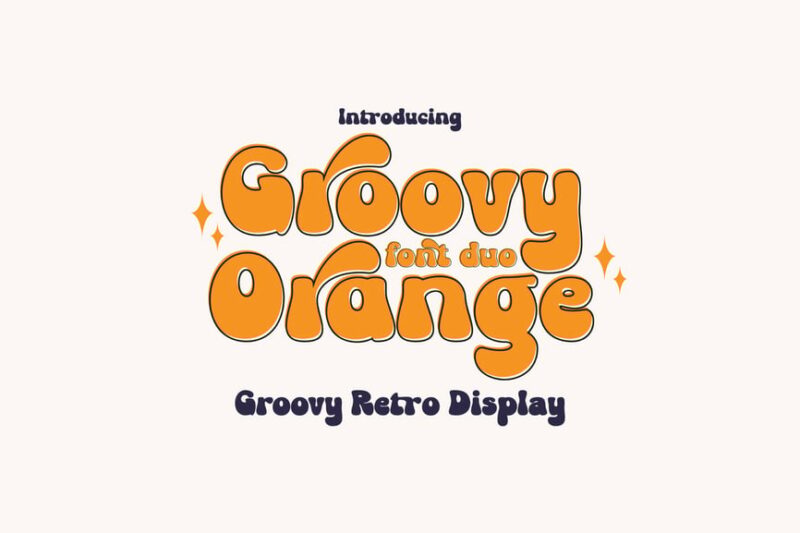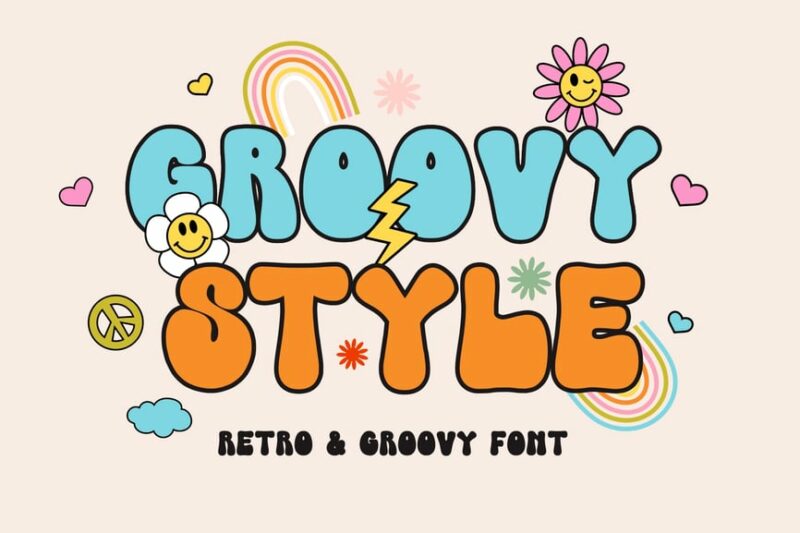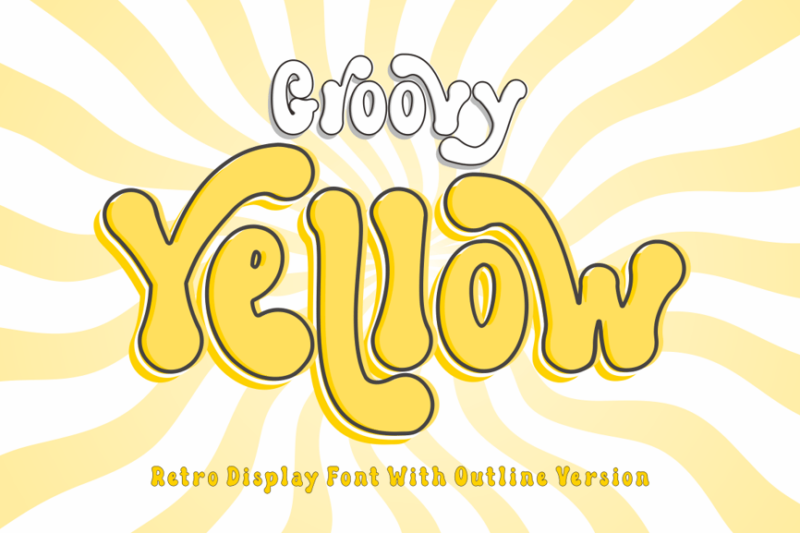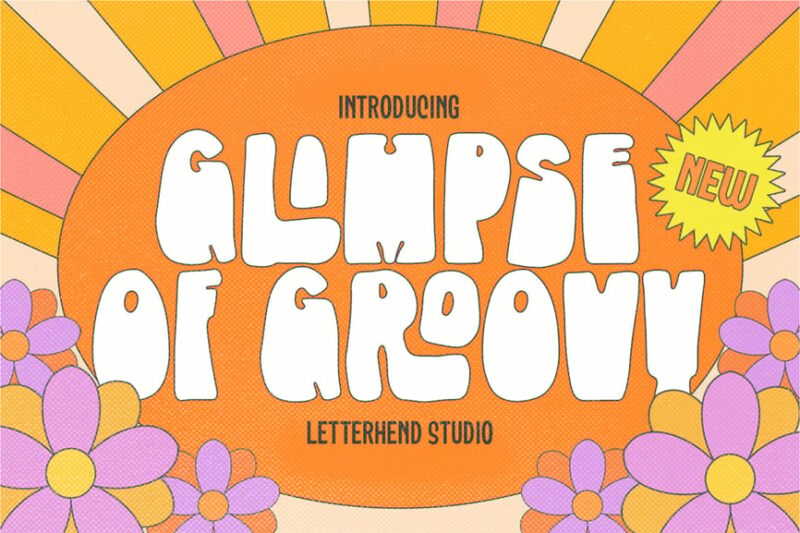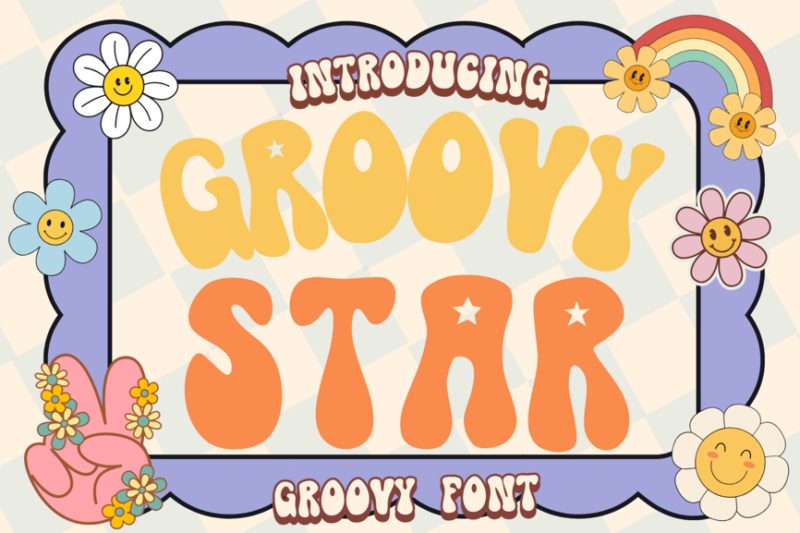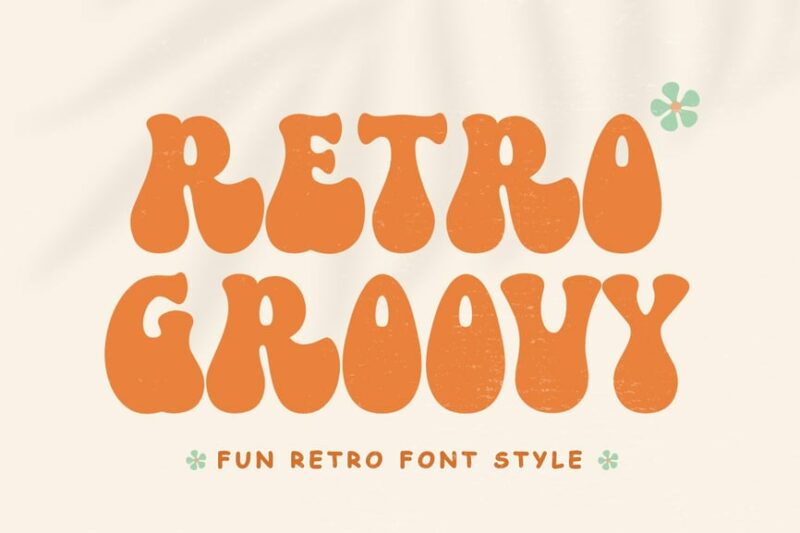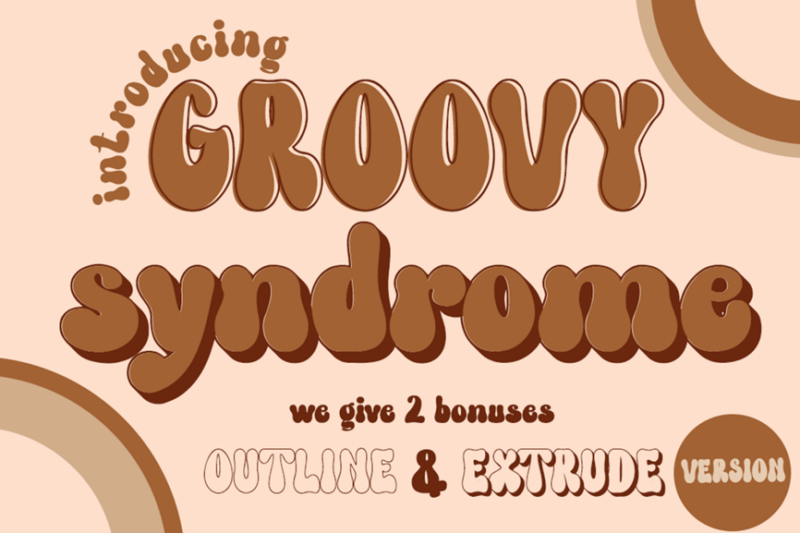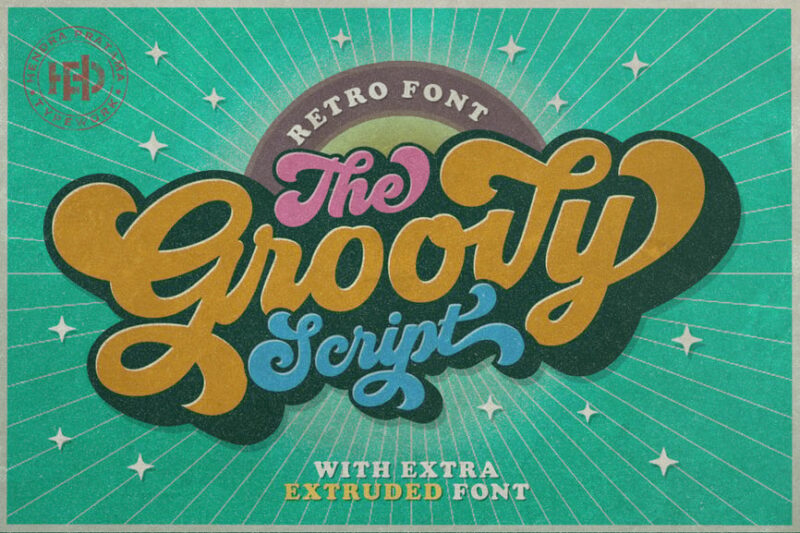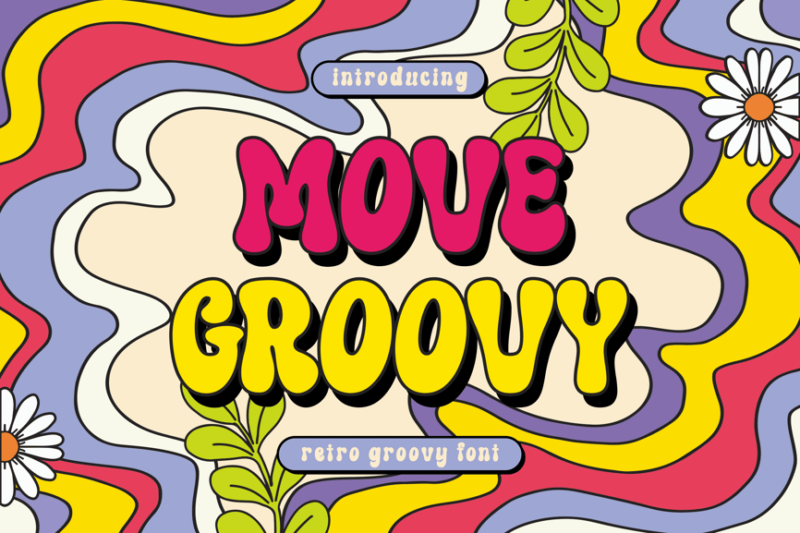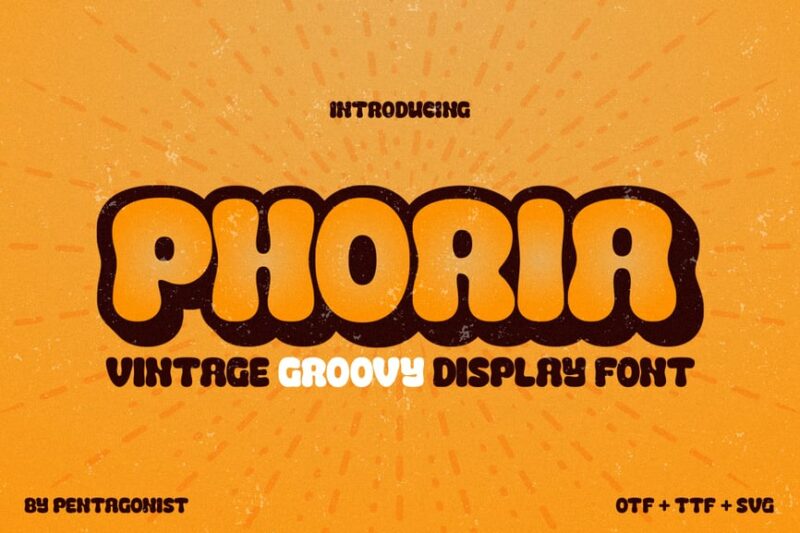
As a designer who’s spent countless hours exploring typography, I can tell you there’s something magical about groovy fonts. These funky letterforms transport us straight back to the psychedelic 60s and early 70s, bringing with them all the peace, love, and good vibes of that transformative era.
Whether you’re designing a retro album cover, creating vintage-inspired branding, or just want to add some far-out flair to your next project, groovy fonts can help you capture that perfect nostalgic feeling. In this deep dive, we’ll explore everything you need to know about these fantastic typefaces.
What Makes a Font “Groovy”?
Before we jump into our top picks, let’s break down what exactly gives these fonts their distinctively groovy personality. It’s not just about looking old-school – there’s actually some fascinating design psychology at work here.
Groovy fonts typically feature several key characteristics that instantly evoke that 60s feeling:
- Flowing, organic shapes that seem to move and dance across the page, often inspired by the psychedelic art movement
- Exaggerated curves and swirls that create a sense of movement and fluidity, reflecting the free-spirited nature of the era
- Bold, high-contrast strokes that command attention and make a statement, just like the revolutionary spirit of the times
- Playful alternates and ligatures that add personality and make each word feel unique and special
The Most Far-Out Groovy Fonts
Groovy Orange
Groovy Orange is a vibrant serif font that embodies the essence of retro design. Its bold, curvy letterforms and playful symbols make it perfect for creating eye-catching headlines and nostalgic branding projects.
GROOVY STYLE
GROOVY STYLE is a sans-serif font that captures the spirit of the 1970s. With its smooth curves and funky vibe, this typeface is ideal for creating retro-inspired designs, album covers, and vintage-themed marketing materials.
Groovy Yellow
Groovy Yellow is a decorative script font that exudes a cheerful, retro charm. Its fluid, handwritten style and display-oriented design make it perfect for creating fun, nostalgic titles and branding elements.
Glimpes of Groovy
Glimpes of Groovy is a sans-serif font with a distinctive retro flair. Its rounded edges and playful character make it suitable for creating groovy headlines, posters, and logo designs that evoke a sense of nostalgia.
Groovy Star
Groovy Star is a decorative font featuring a bubbly, psychedelic design. Its rounded letterforms and star-shaped elements make it perfect for creating eye-catching titles and graphics for music events, retro-themed parties, and bold branding projects.
Retro Groovy
Retro Groovy is a chunky serif font with a strong vintage aesthetic. Its bold, substantial letterforms make it ideal for creating impactful headlines, logotypes, and retro-inspired designs that demand attention.
Roundy Groovy
Roundy Groovy is a decorative display font with a fun, retro vibe. Its rounded shapes and playful design make it perfect for creating eye-catching titles, posters, and branding elements that evoke a sense of nostalgia and whimsy.
Groovy Beach
Groovy Beach is a decorative font that captures the essence of vintage beach culture. Its wavy, fluid letterforms and retro styling make it ideal for creating surf-inspired designs, summer event posters, and nostalgic branding projects.
Groovy Syndrome
Groovy Syndrome is a fun font with a strong retro personality. Its bold, curved letterforms and funky style make it perfect for creating eye-catching headlines, logo designs, and vintage-inspired graphics that stand out.
Berdano Groovy Font
Berdano Groovy Font is a script typeface that combines groovy aesthetics with elegant calligraphy. Its flowing letterforms and retro-inspired design make it ideal for creating stylish headlines, branding elements, and designs that require a touch of vintage charm.
Groovy – Retro Font
Groovy – Retro Font is a script typeface that blends retro aesthetics with calligraphic elegance. Its fluid letterforms and vintage-inspired design make it perfect for creating nostalgic branding, event invitations, and designs that require a touch of retro sophistication.
Move Groovy Font
Move Groovy Font is a decorative typeface that captures the dynamic spirit of retro design. Its bold, curved letterforms and energetic style make it ideal for creating eye-catching headlines, posters, and branding elements that evoke a sense of movement and nostalgia.
Phoria | Groovy Display
Phoria is a versatile groovy display font that combines sans-serif, decorative, and script styles. Its elegant yet playful design makes it suitable for a wide range of projects, from branding and packaging to editorial designs that require a touch of retro flair.
Whether you’re creating designs for a music festival, branding a vintage-inspired product, or just want to add some fun to your next project, these fonts offer endless possibilities for creative expression. Just remember to consider your audience and context, and you’ll be grooving in no time!